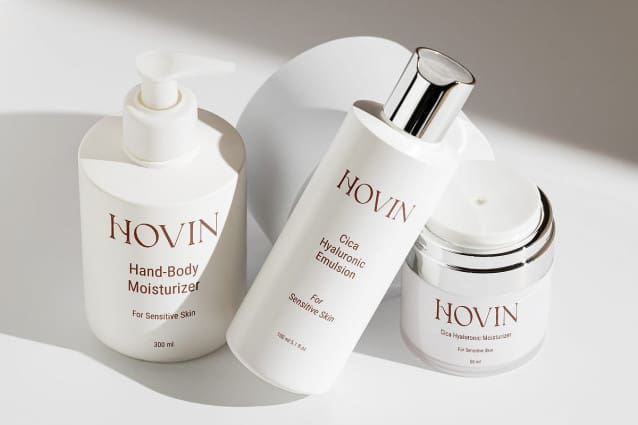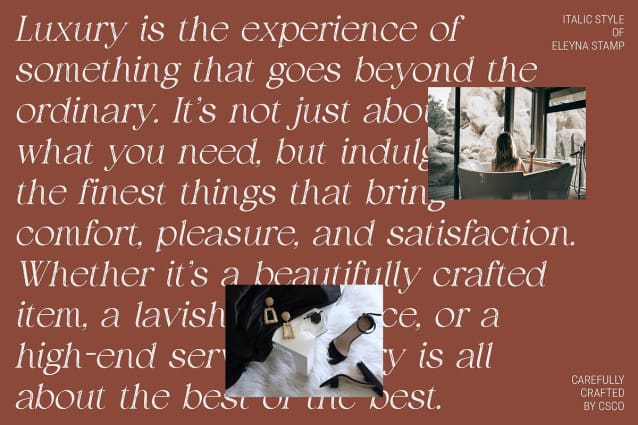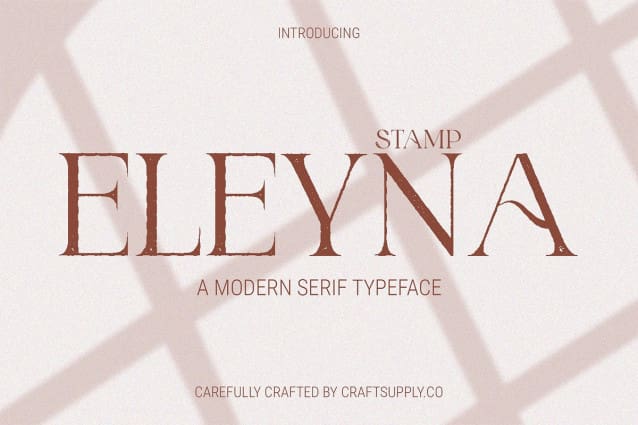
Eleyna Stamp Font
Eleyna Stamp Font is a modern serif font that exudes feminine beauty through its smooth lines and elegant details. Its refined, graceful shapes create a sophisticated look, making it ideal for designs that aim to convey both style and class.
Grunge Touch with Stamp Effect The added stamp effect introduces a unique grunge touch, blending the font’s inherent elegance with a distinct, textured character. This combination of smooth, beautiful shapes and rugged detailing provides a visually captivating contrast.
Perfect for Elegant and Impactful Designs Ideal for projects that require a balance of beauty and visual impact, Eleyna Stamp is perfect for high-end branding, stylish editorial layouts, and creative design applications. Its mix of refined elegance and edgy texture makes it versatile for a range of sophisticated and impactful designs.
Add Unique Charm to Your Design Elevate your projects with Eleyna Stamp, where elegant femininity meets a touch of grunge. This font offers a distinctive, refined appearance, making it an excellent choice for designs that need to stand out with both grace and character.